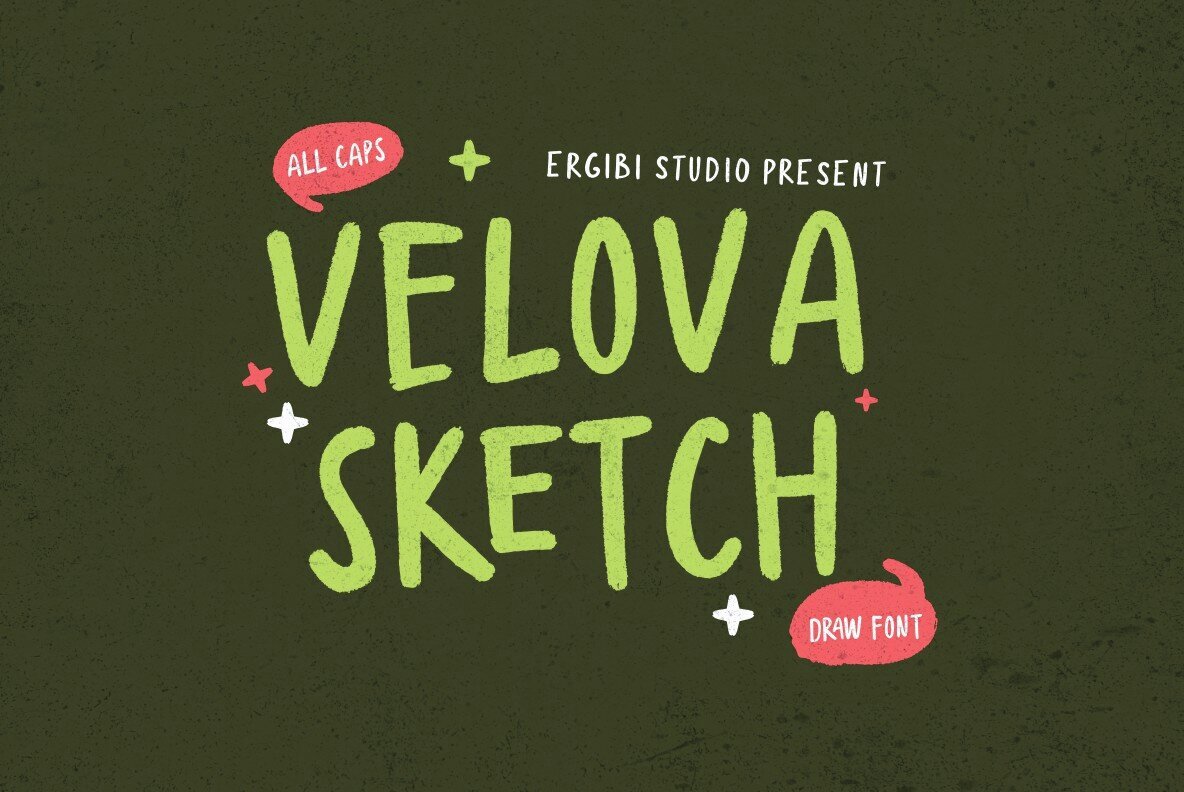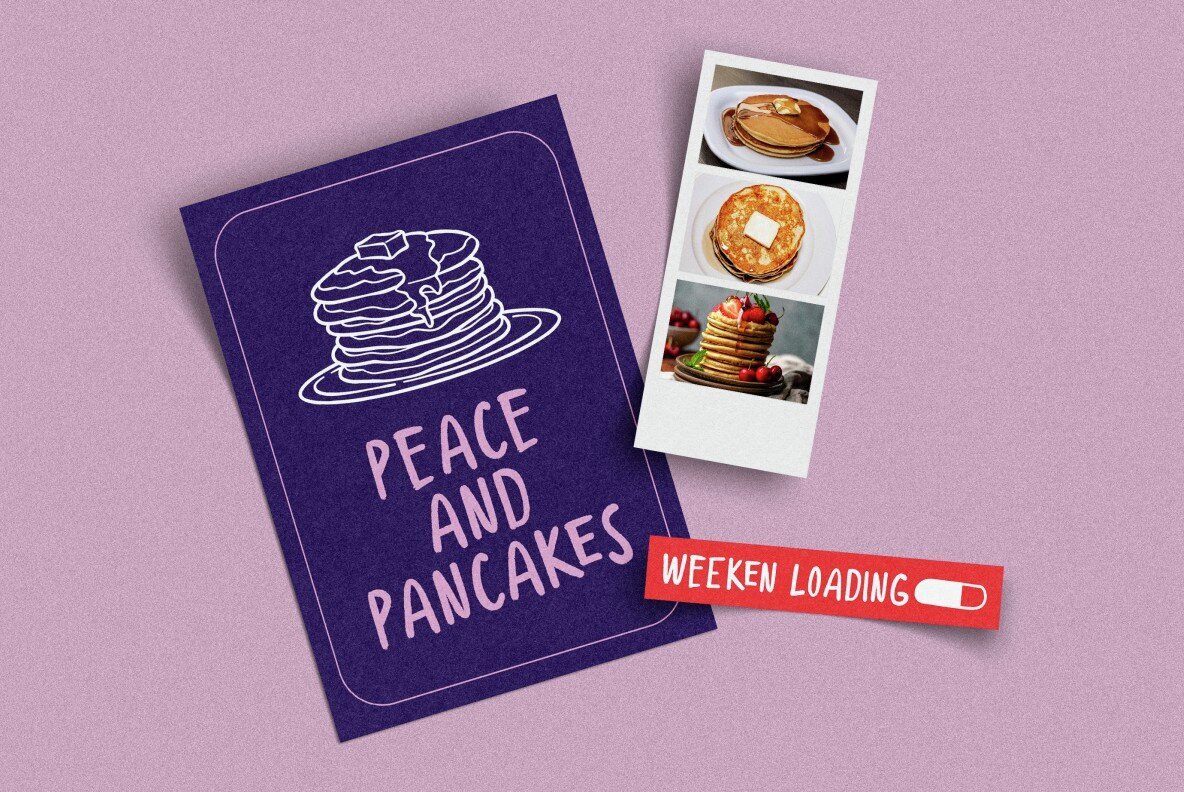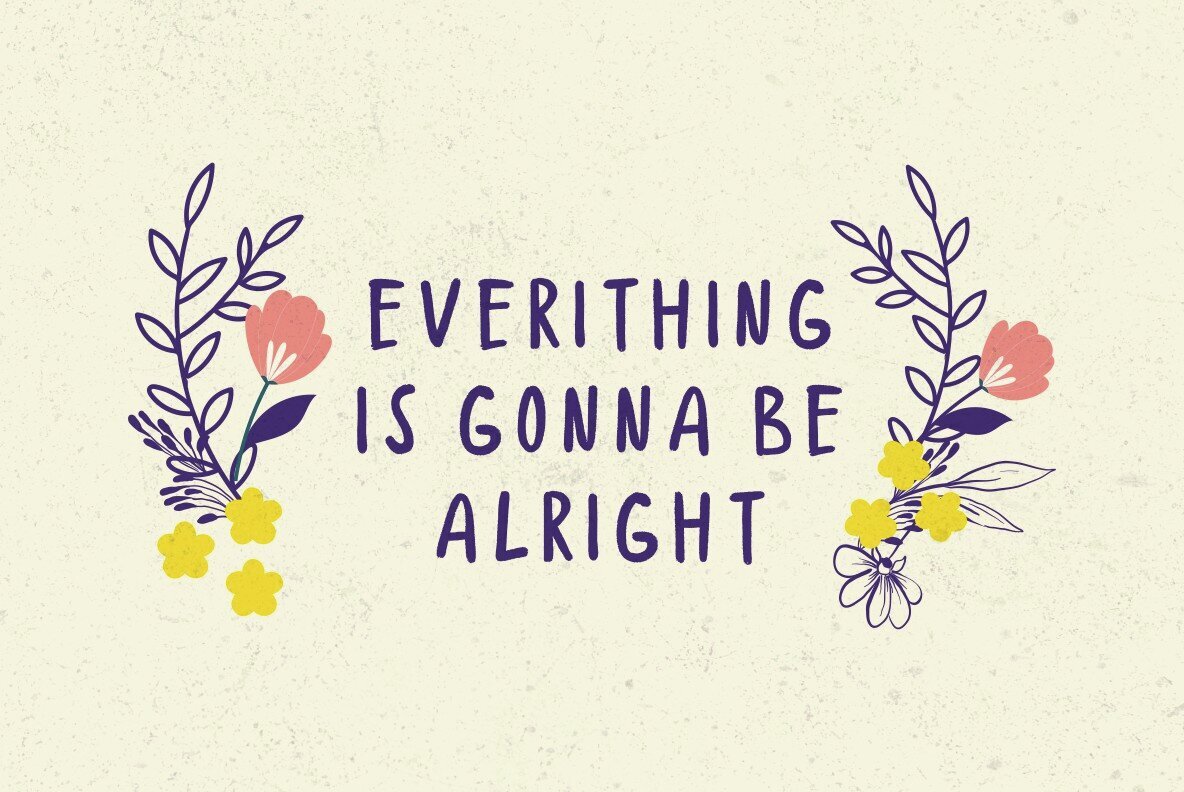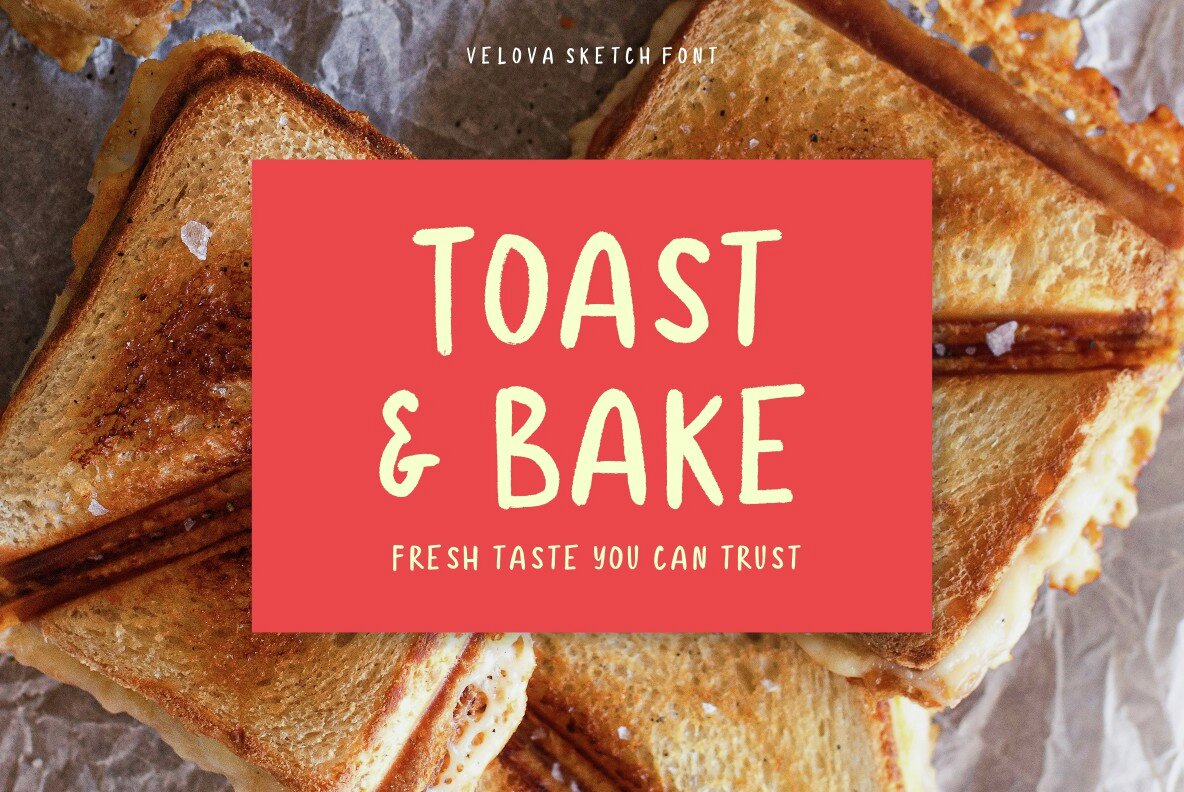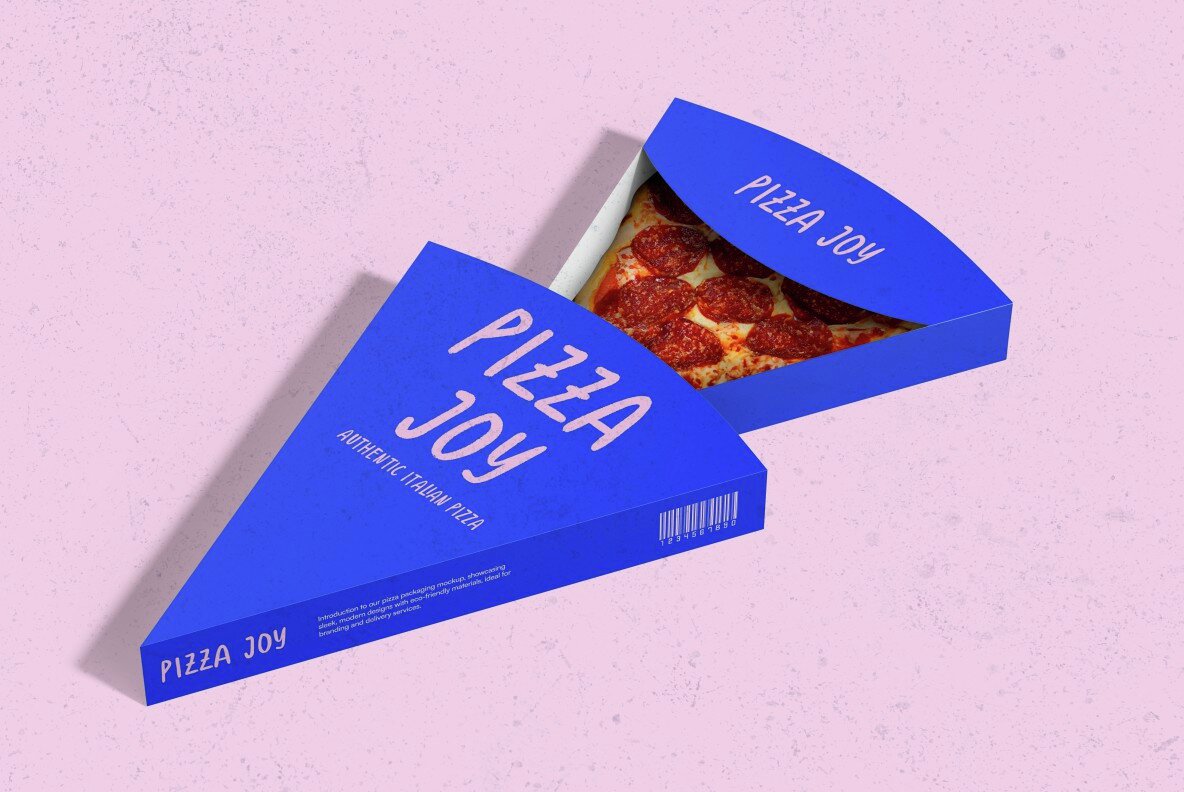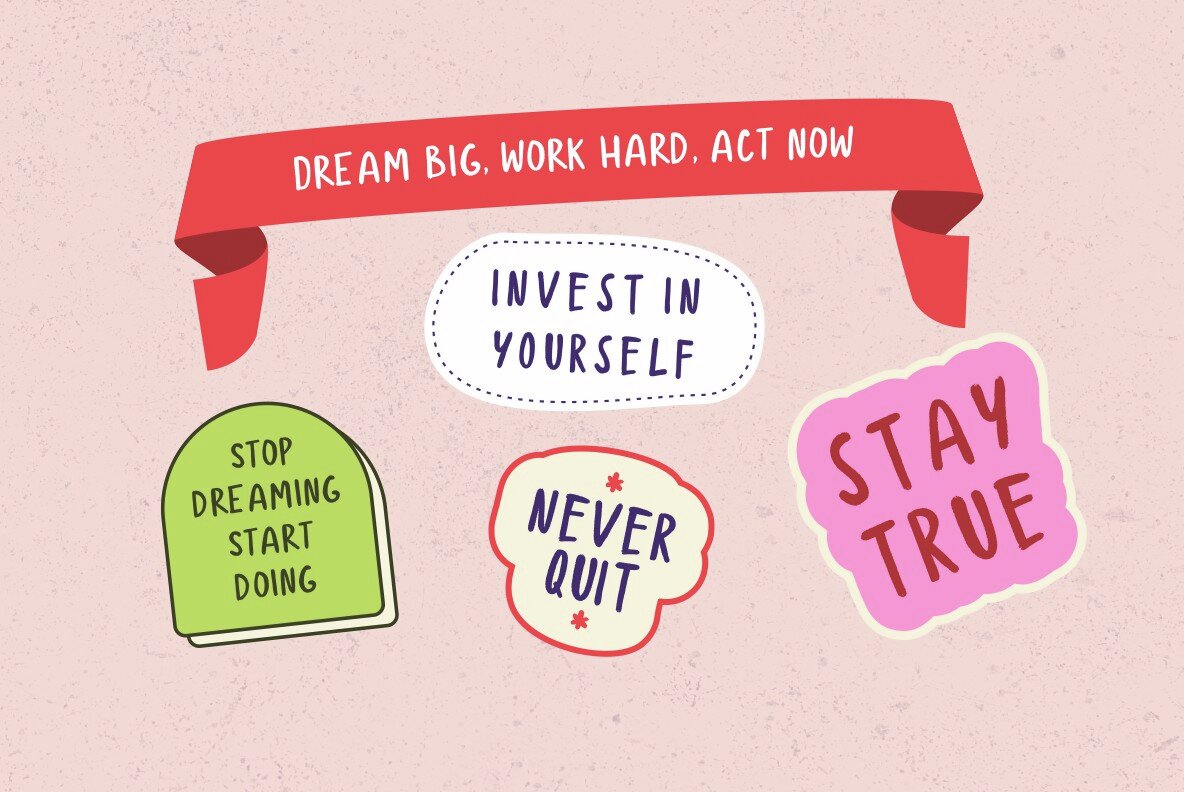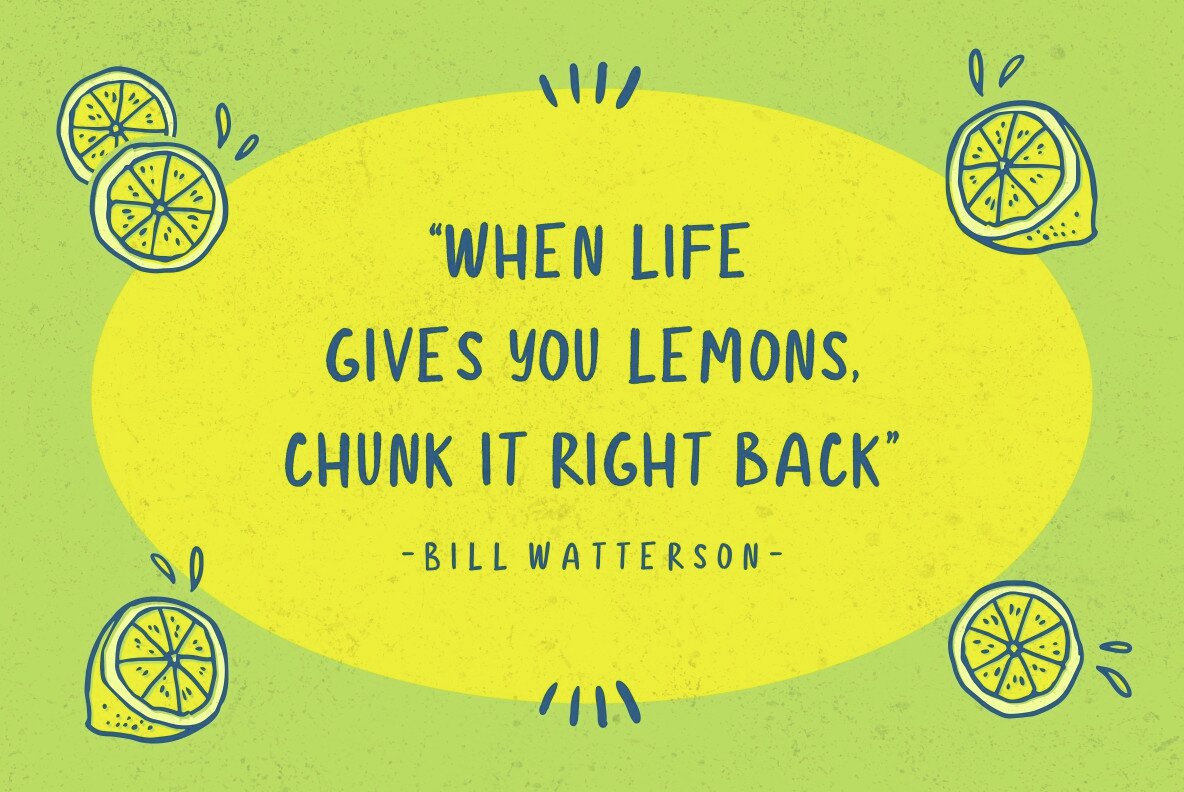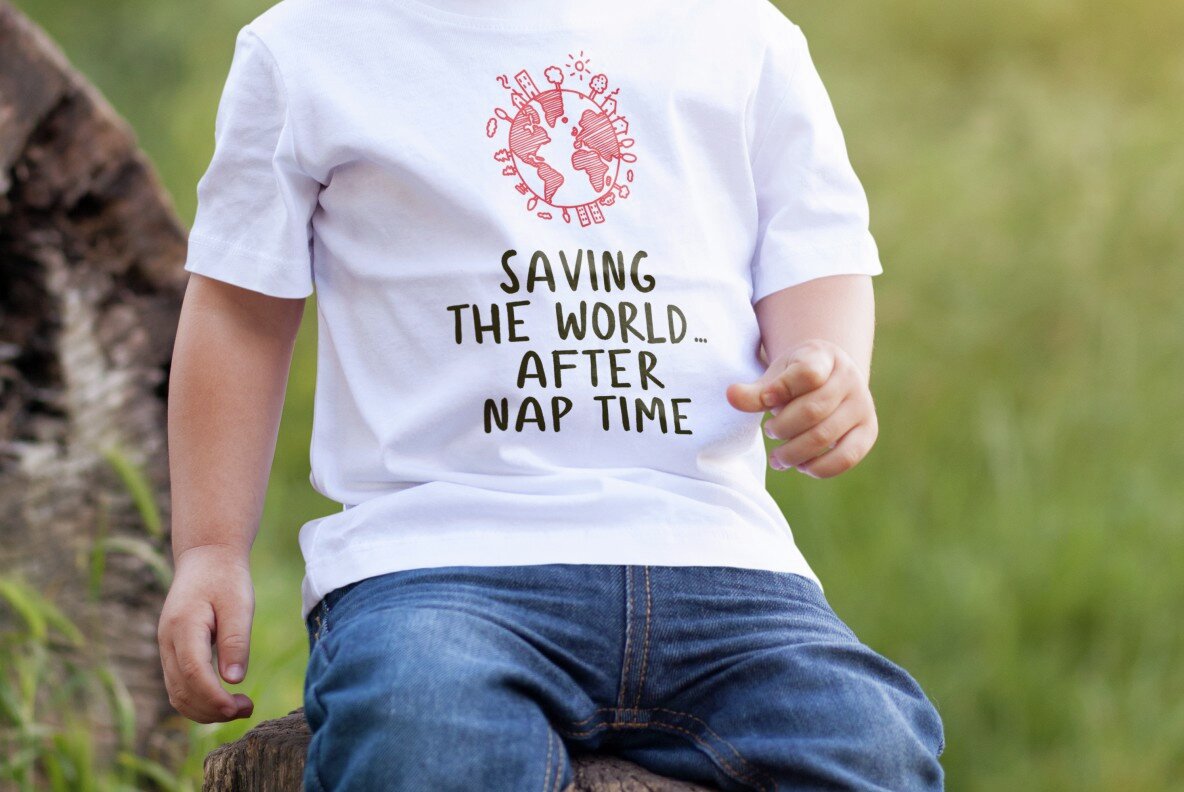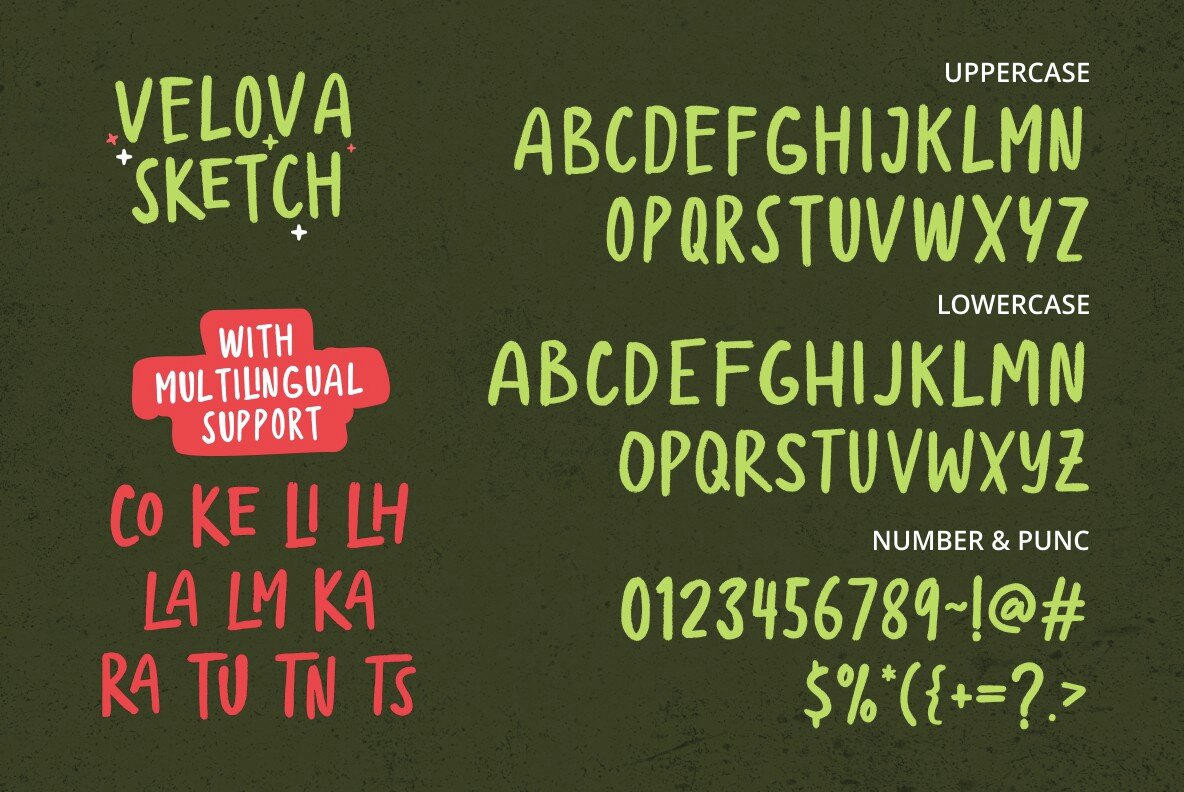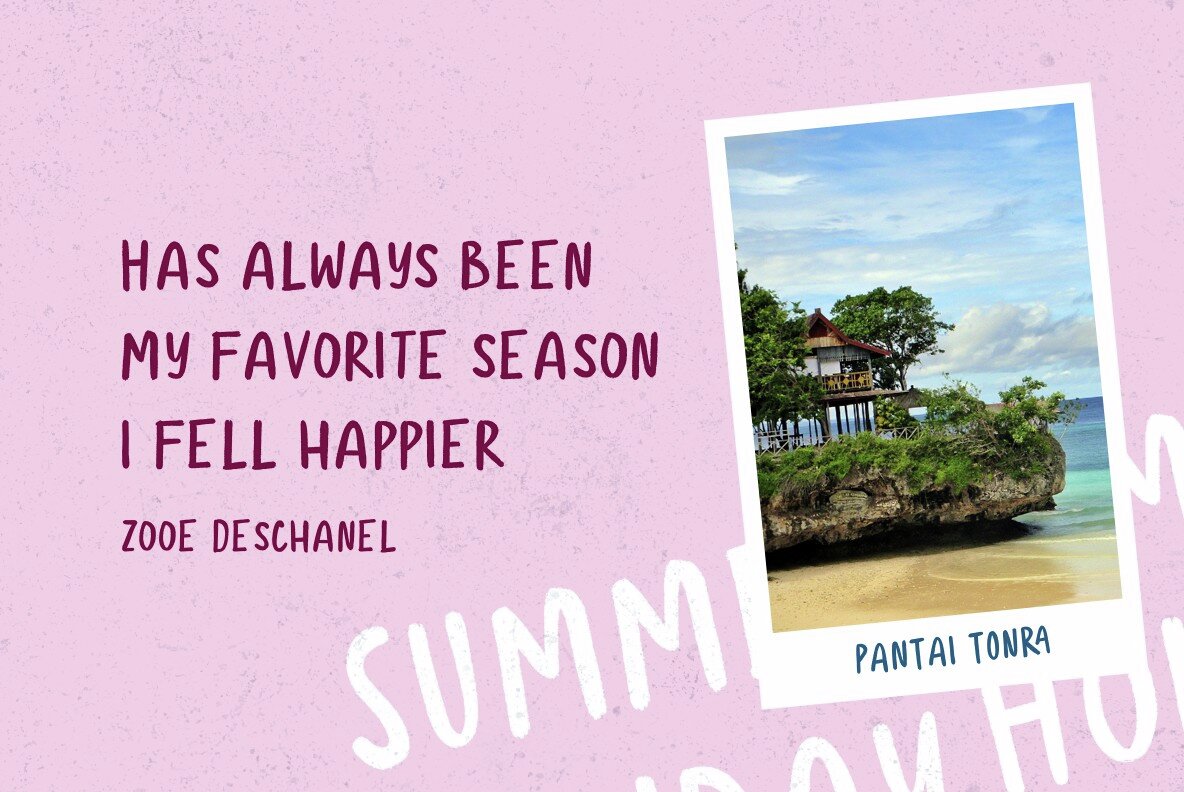
Velova Sketch Font
Velova Sketch
Velova Sketch offers an inviting, hand-drawn character that resonates with projects seeking warmth and human appeal. Each uppercase letter showcases a thoughtful balance between imperfection and intention, with sketchy lines enhancing the authenticity of the design. This all-caps font carries an expressive presence, well-suited for contemporary design sensibilities. Velova Sketch is an excellent choice for posters, packaging, branding, and creative work that benefits from a handcrafted approach. Its organic style distinguishes modern layouts, adding an individualistic touch without overwhelming the overall composition.Velova Sketch: Organic Hand-Drawn All-Caps Font